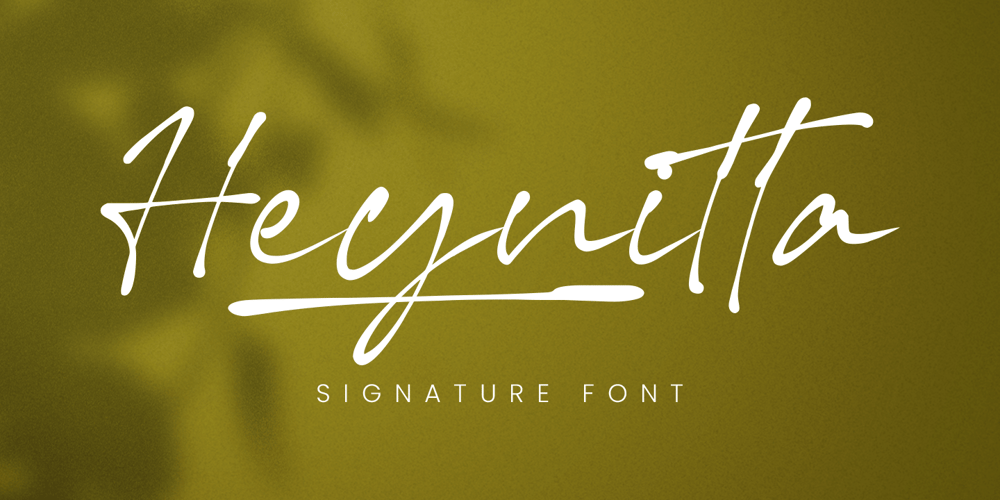
Heynitta Font Family was designed by Novitasari Romli and published by Novitype. Heynitta contains 1 styles and family package options. Introducing Heynitta, classy signature font created with the ink splash style. This font is so impressive, and energetic, representing a dynamic of the lifestyle. This font is specially made for elegant things, fashion, quotes, and more.You can apply this font for something that needs a casual typography such as weddings, cards, labels, packaging, magazines, flyer, logotype, you name it. Heynitta is also equipped with multilingual support.Thank you for watching!